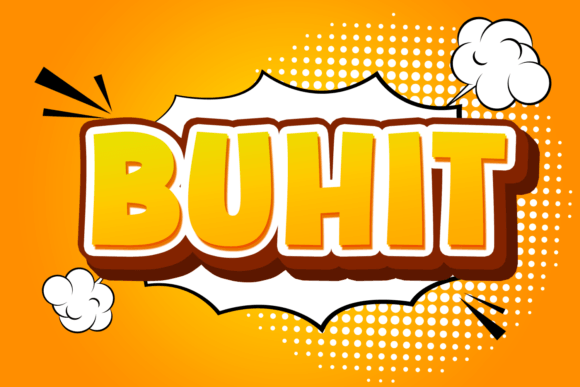
The Ultimate Display Font: A Deep Dive into Buhit
I’ll never forget the time I was working on a project for a client who needed a bold, eye-catching font to make their poster stand out. I scoured the internet, trying font after font, but nothing seemed quite right. That was until I stumbled upon Buhit. This thick and captivating display font has been a game-changer for my design work, and I’m excited to share its awesomeness with you! 😊
An Honest Review of Buhit
• ✨ **Bold and eye-catching**: Buhit’s wide characters and thick lines make it perfect for grabbing attention.
• ✅ **Versatile**: This font looks fantastic on posters, banners, advertising materials, product packaging, book covers, and more.
• 💥 **High-impact**: Buhit’s bold aesthetic adds a professional touch to any design project.
While Buhit is an amazing font, there are a few things to keep in mind:
• ⚠️ **Legibility at small sizes**: Buhit can become a bit tricky to read at smaller font sizes, so it’s best used for headlines or titles.
• 🤔 **Limited use in body text**: Due to its bold nature, Buhit isn’t ideal for long blocks of text. Stick to using it for headings and titles.
A Practical Guide to Using Buhit
The Story Behind Buhit
Buhit was designed with the intention of creating a bold, attention-grabbing font that would make a statement. Inspired by urban landscapes and modern typography, the designer aimed to craft a font that would be both visually striking and highly legible. The result is a font that’s perfect for designers, crafters, and creative hobbyists looking to add some extra oomph to their projects.
Q: What is Buhit best used for?
Buhit is ideal for display purposes, such as posters, banners, advertising materials, product packaging, and book covers.
Q: Can I use Buhit for body text?
While Buhit can be used for short paragraphs, it’s not recommended for long blocks of text due to its bold nature. Stick to using it for headings and titles.